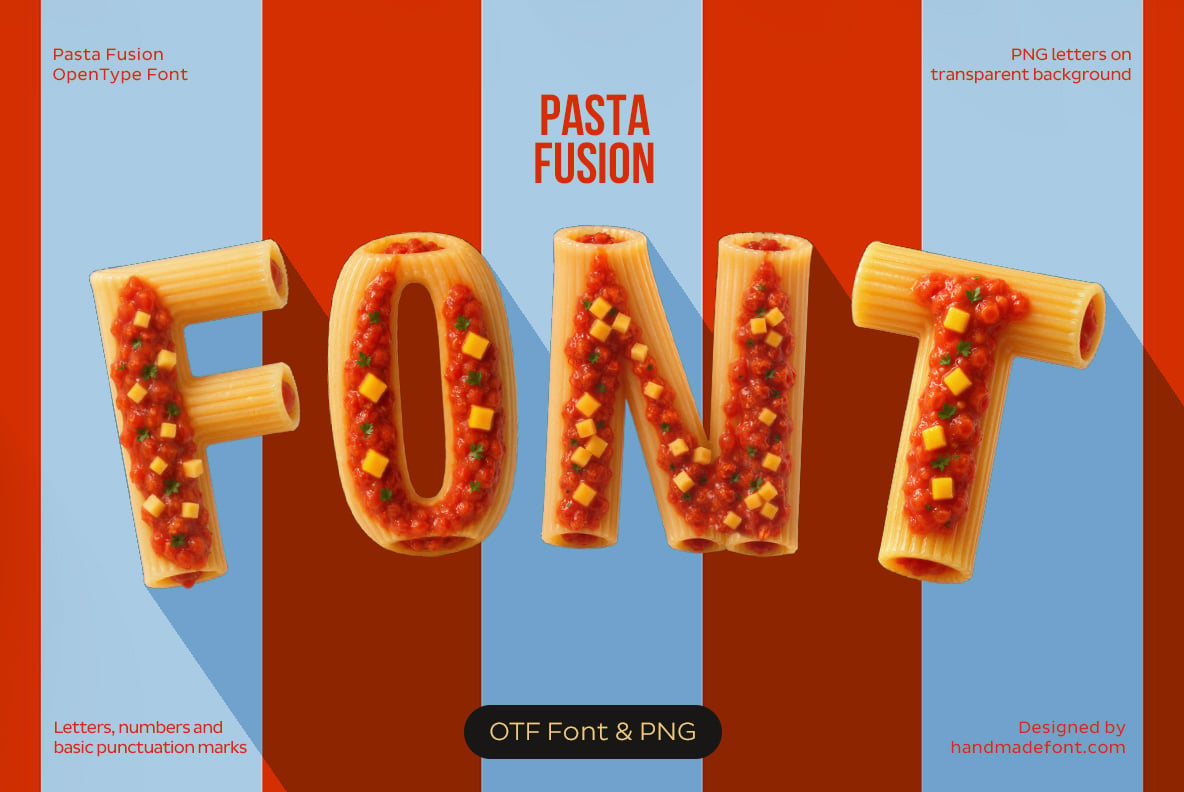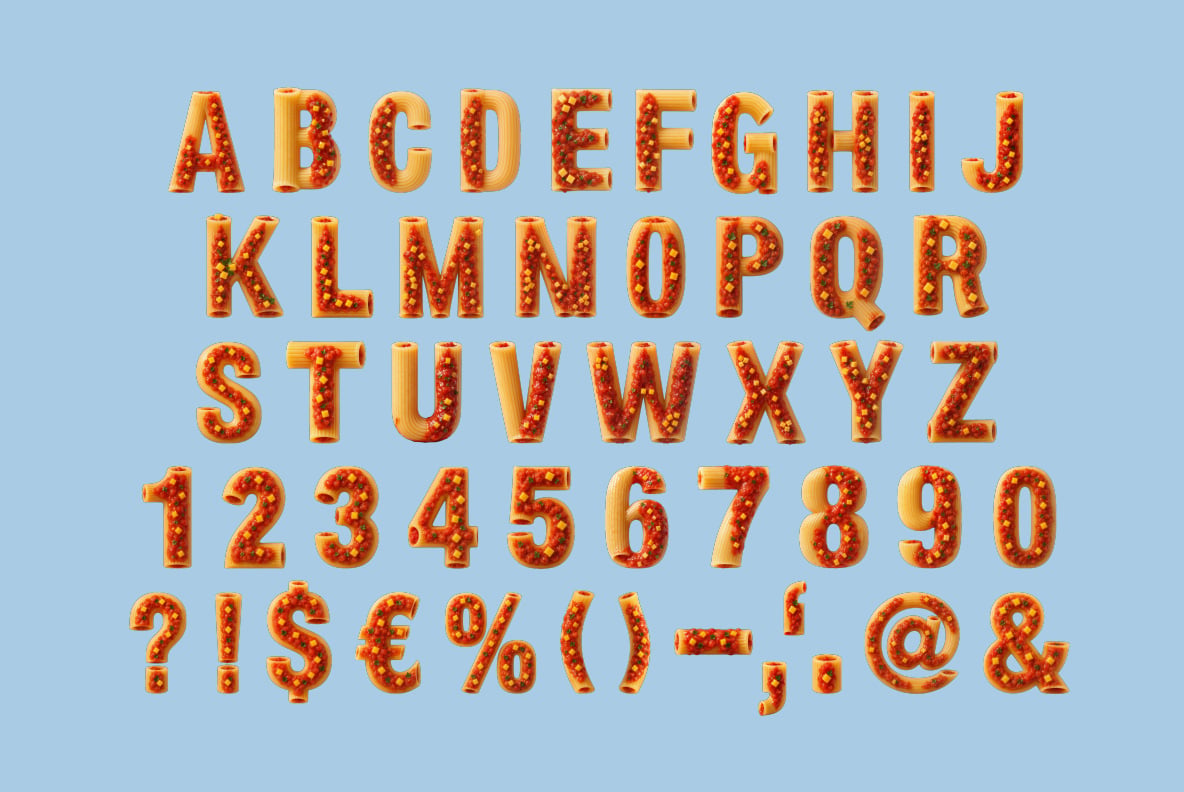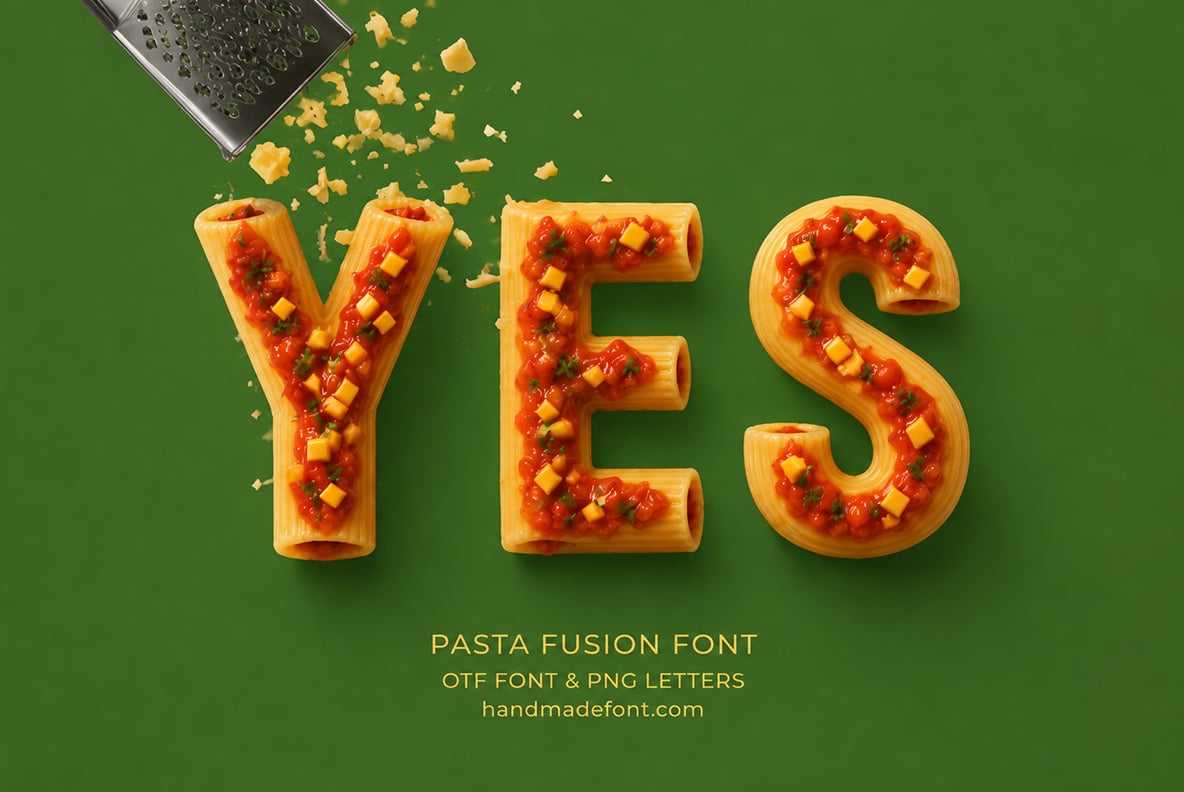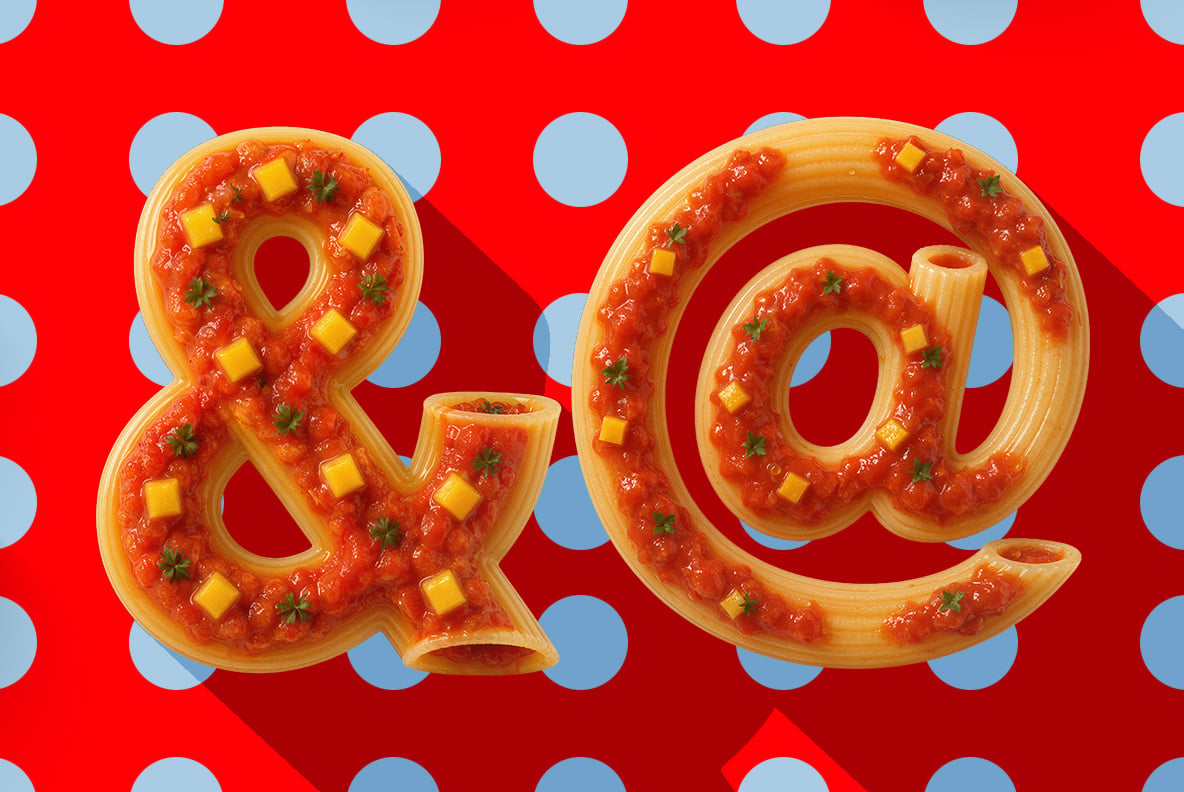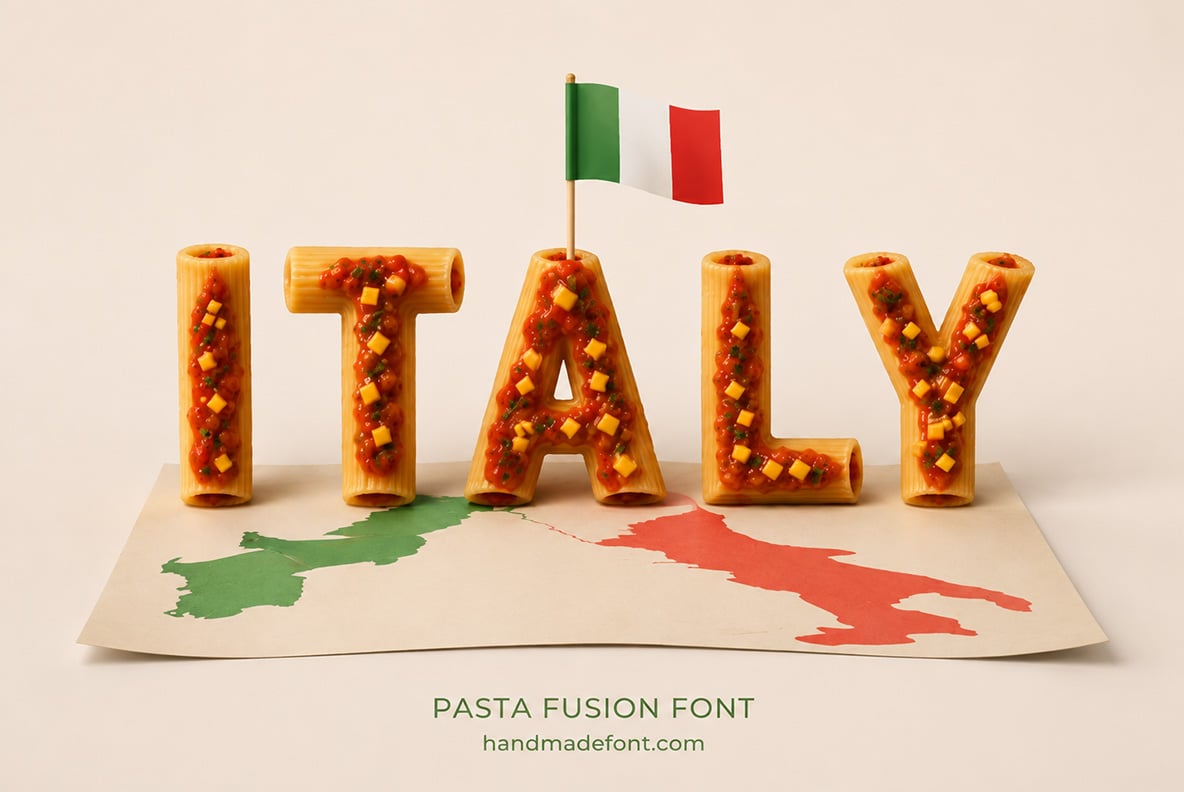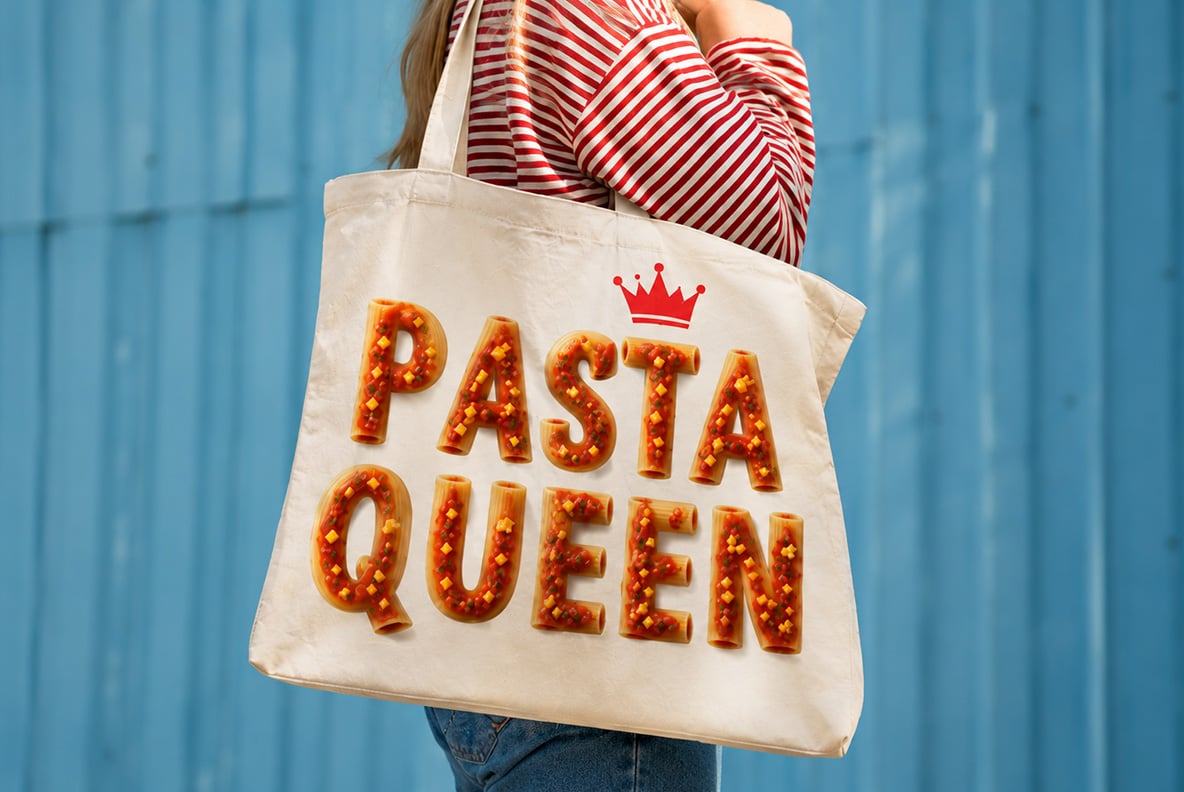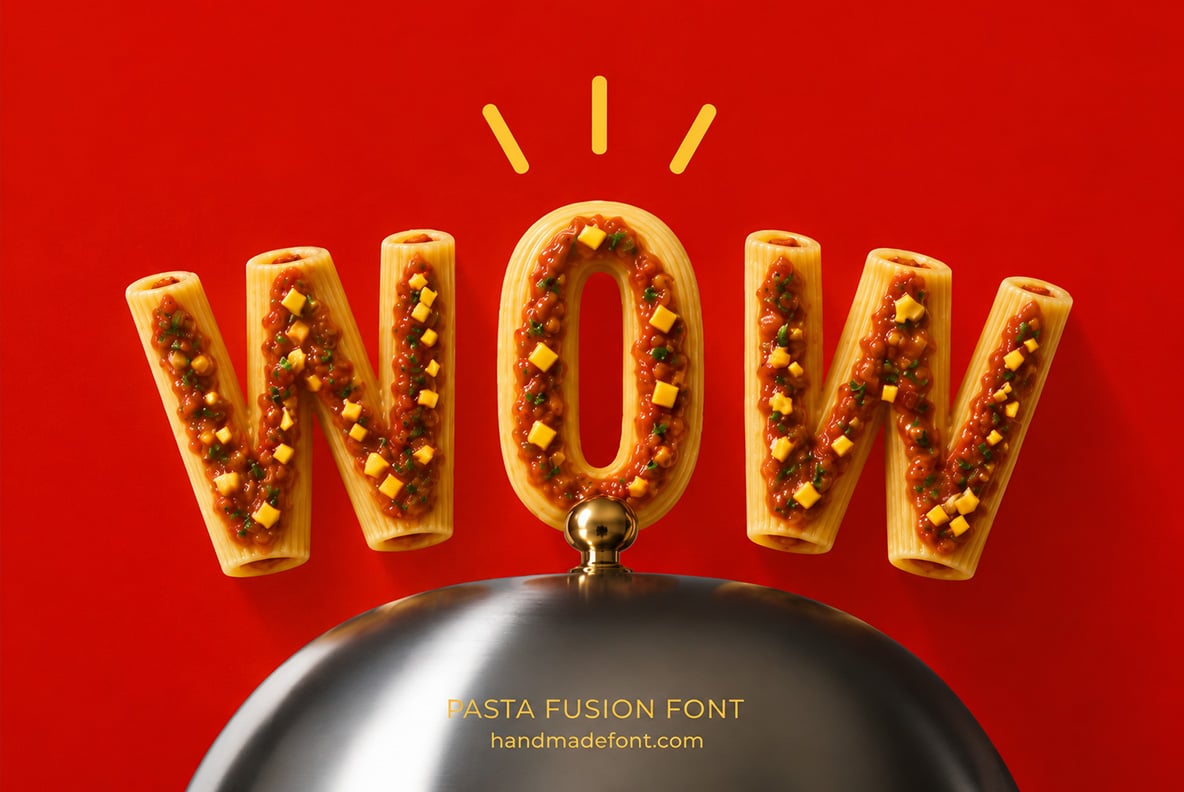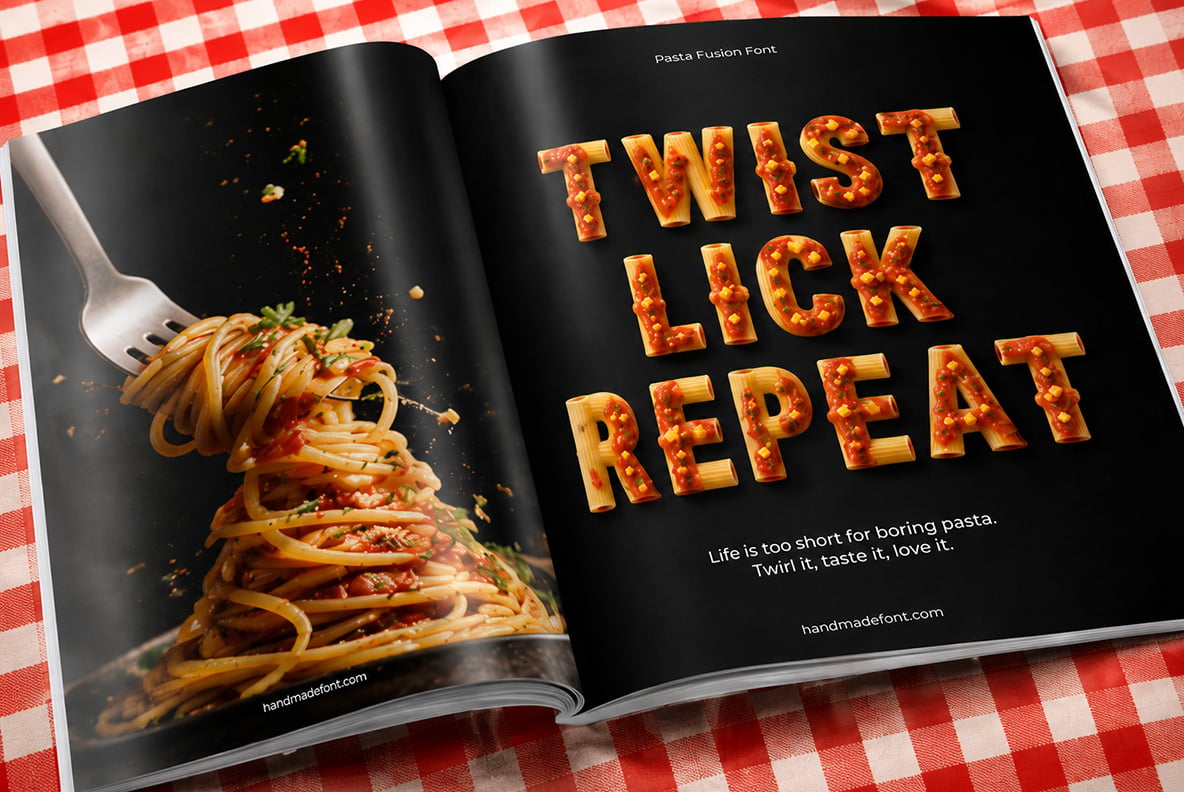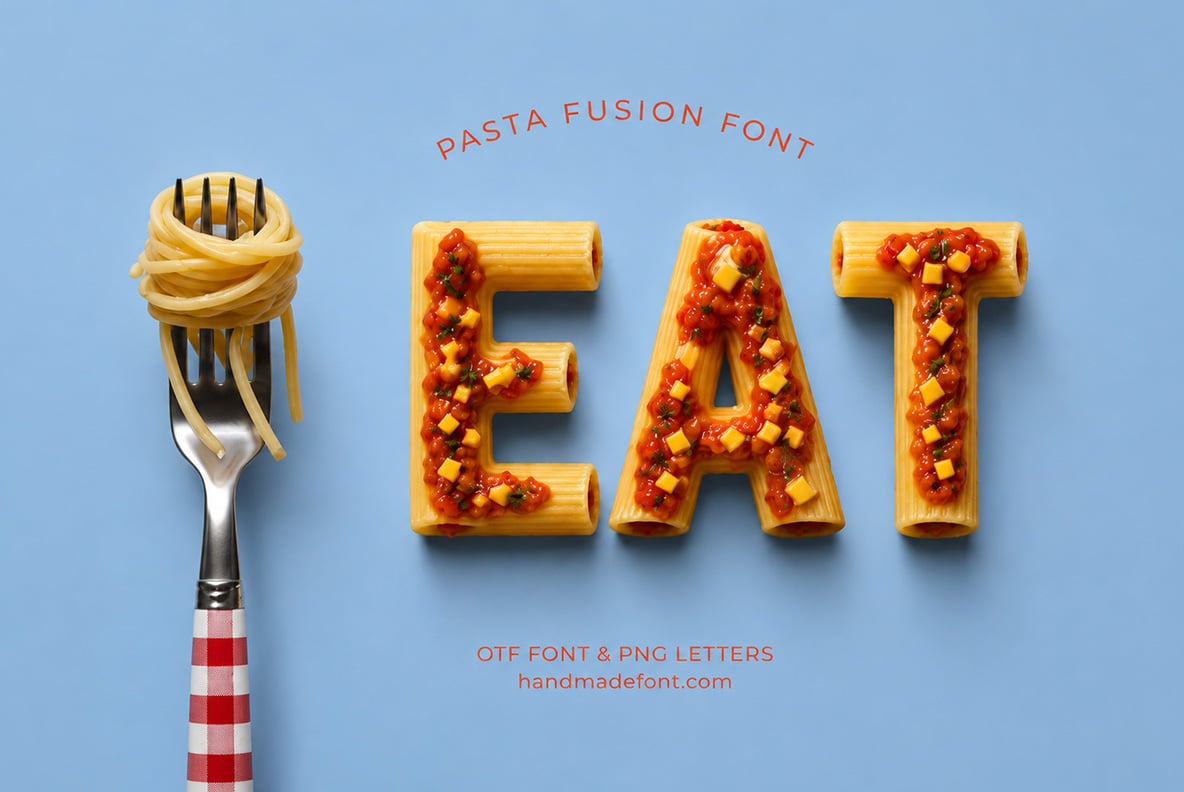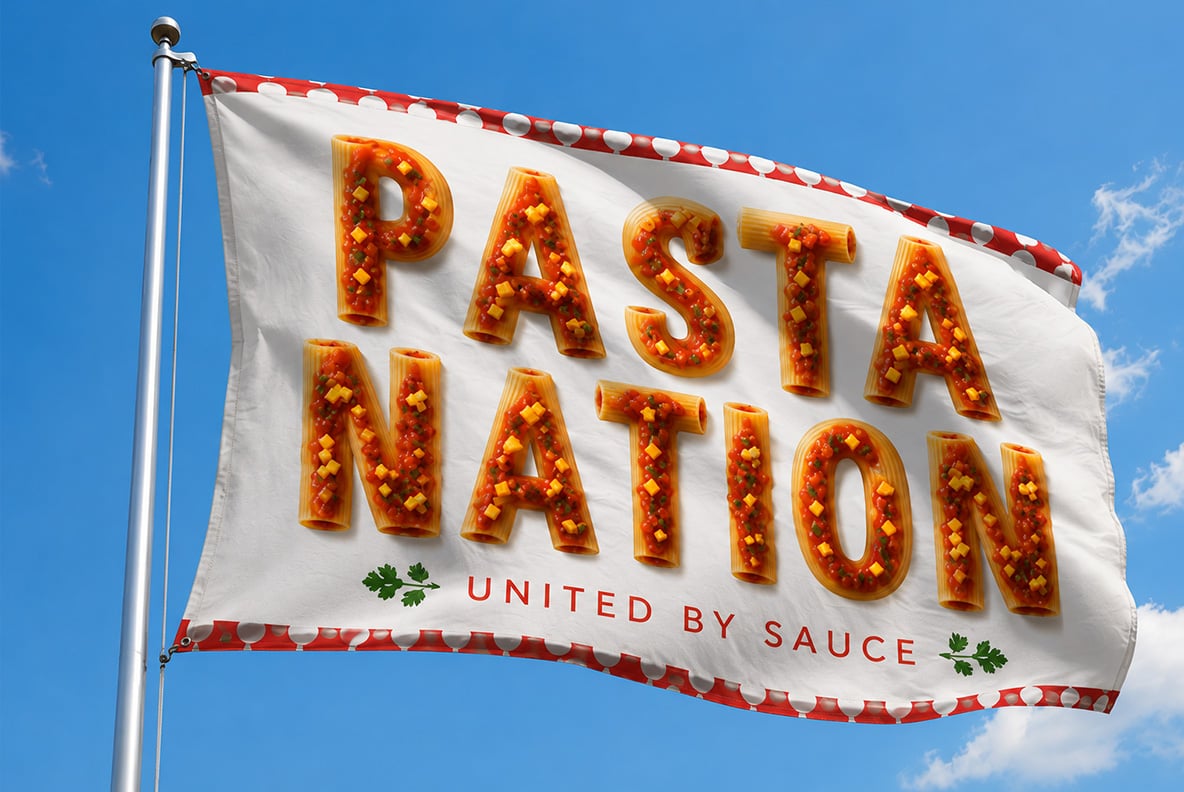
Pasta Fusion Font
Pasta Fusion Font is a playful handcrafted typeface inspired by authentic Italian pasta, rich tomato sauce, and delicious culinary creativity. Every character is carefully designed to resemble realistic pasta filled with vibrant ingredients, creating a bold and mouthwatering visual style perfect for food branding, restaurant menus, packaging, social media, posters, advertising, and playful editorial projects. The package includes the complete OpenType (OTF) font for easy typing, plus every letter, number, and punctuation mark as individual high-resolution PNG files with transparent backgrounds, allowing effortless drag-and-drop composition, custom layouts, logos, stickers, merchandise, and creative digital or print designs with maximum flexibility.